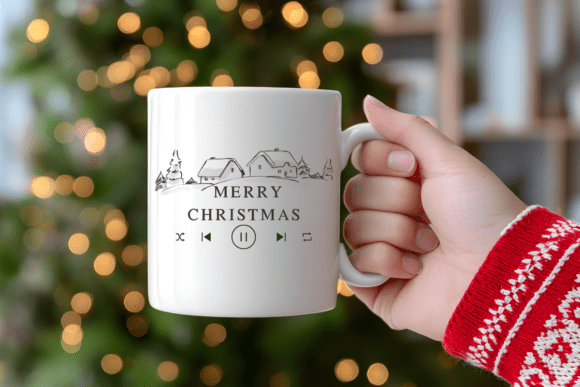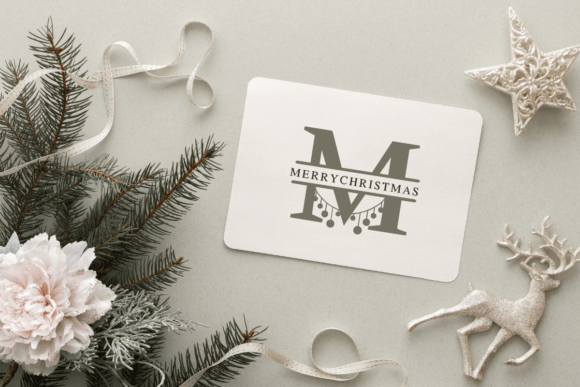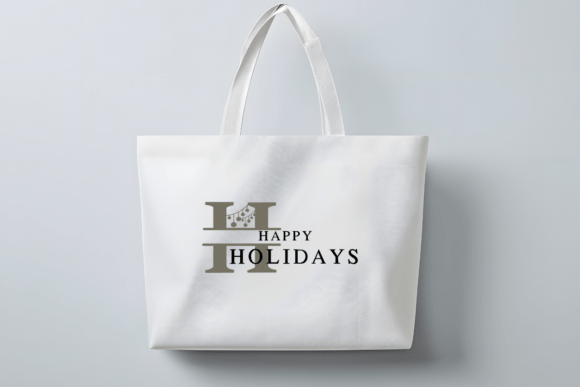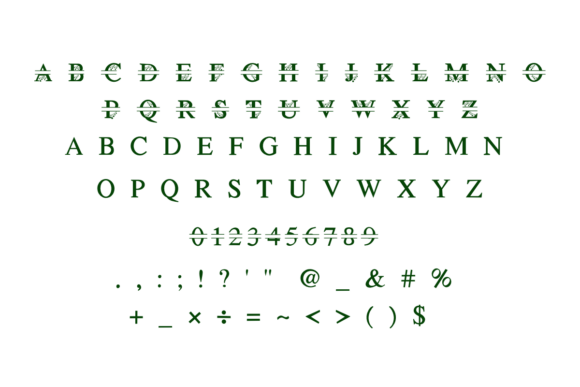
Deck the Halls with the Perfect Font
As you sit by the twinkling Christmas tree, surrounded by loved ones, and the soft glow of festive lights, the creative juices start to flow. You pull out your notebook and begin to jot down ideas for the perfect holiday gift, or perhaps a heartfelt letter to a dear friend. In this moment, the right font can make all the difference, transporting your thoughts into a world of wonder and magic.
Enter the “Christmas Ornaments” font, a beautiful and versatile typeface designed to capture the essence of the holiday season. Whether you’re a designer, crafter, or simply a lover of all things festive, this font is sure to bring a touch of warmth and charm to your creations. Its adaptability makes it a valuable tool for designers looking to add a spirited holiday touch to their projects.
Christmas Ornaments Font Key Features
- Unique Character Set: This font features a wide range of unique ornaments, including snowflakes, bells, stars, and more, making it perfect for holiday-themed designs.
Review of Christmas Ornaments Font
✨ The font has a clear, festive theme that’s perfect for holiday designs. The ornaments and decorations are well-designed and add a nice touch to any project. The font’s consistency and flow make it easy to read and understand.
✨ Another positive aspect is the versatility of the font. It can be used for various holiday-themed projects, from greeting cards to social media graphics. The font’s compatibility with different design software is also a plus.
⚠️ One of the main limitations of the font is its limited character set. It lacks some special characters and punctuation marks, which can be inconvenient for designers who need to use them in their projects.
⚠️ Another limitation is the font’s relatively small size. It’s not ideal for large-scale designs or headings, where the font may become too small to read.
Overall, the Christmas Ornaments Font is a great choice for holiday designs. While it has some limitations, its festive theme, consistency, and versatility make it a valuable addition to any designer’s toolkit.
- Festive holiday theme
- Well-designed ornaments and decorations
- Consistent and easy to read
- Limited character set
- Not ideal for large-scale designs
The ‘Christmas Ornaments Font’ is perfect for creating festive holiday designs, such as:
- Christmas card templates
- Holiday party invitations
- Gift tags and labels
- Seasonal social media graphics